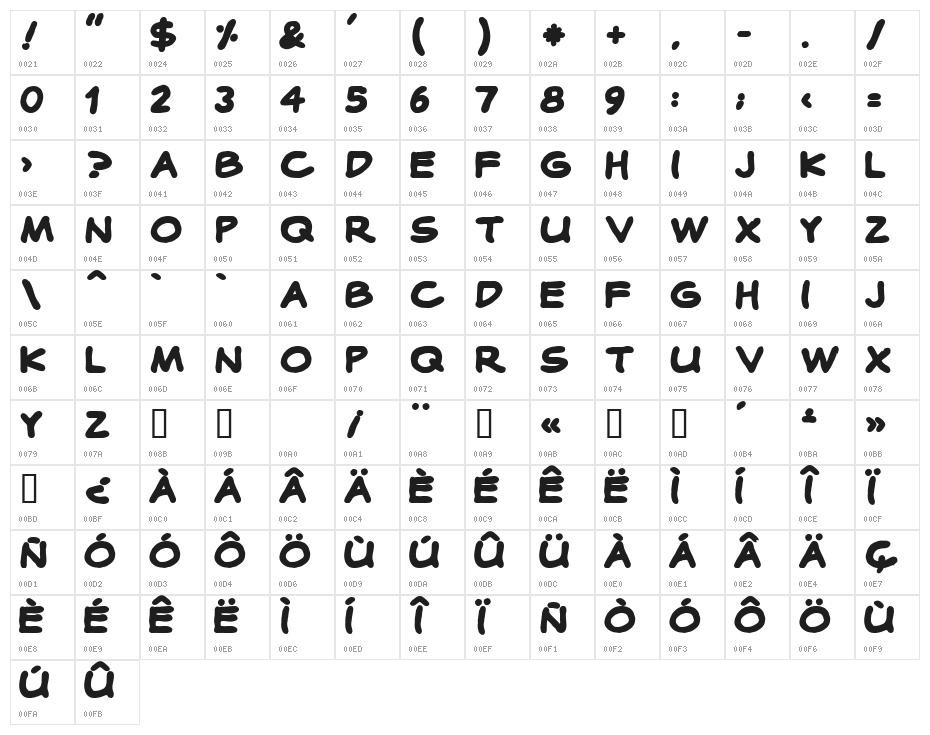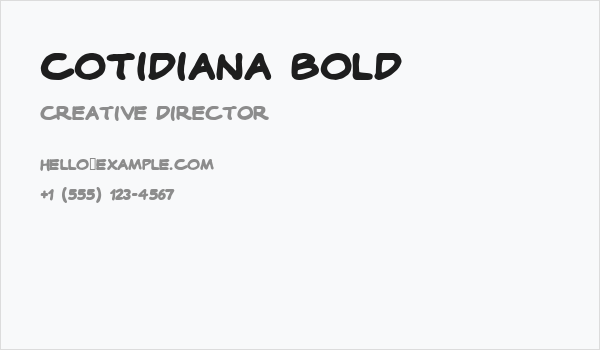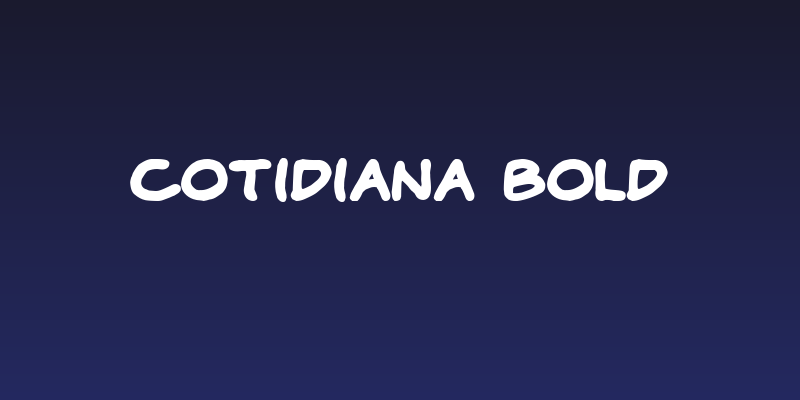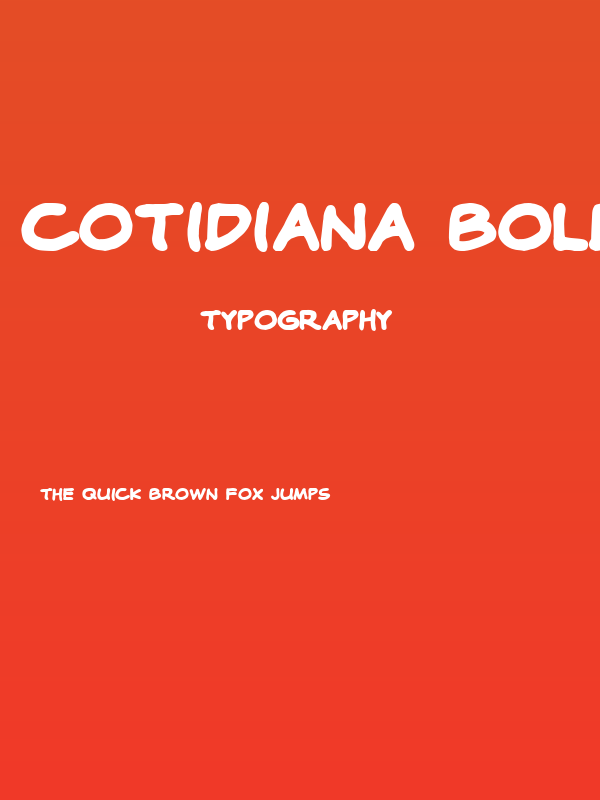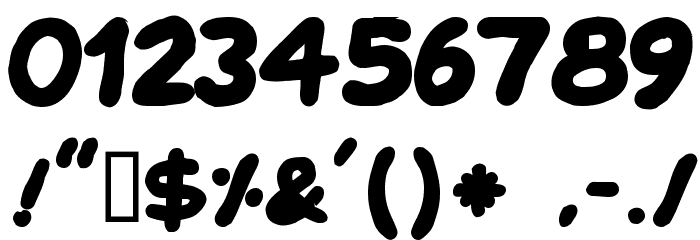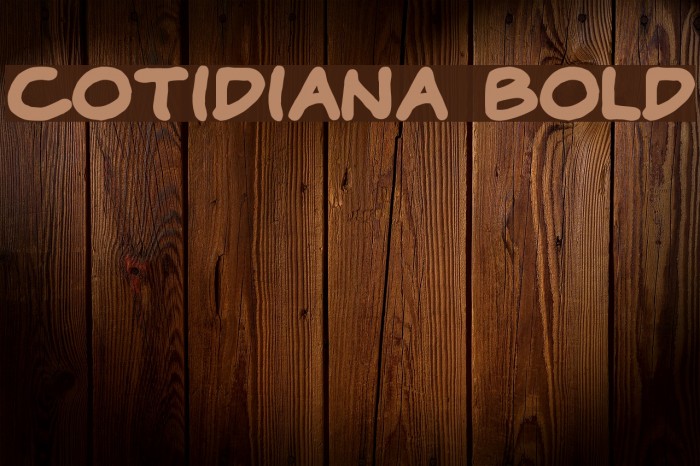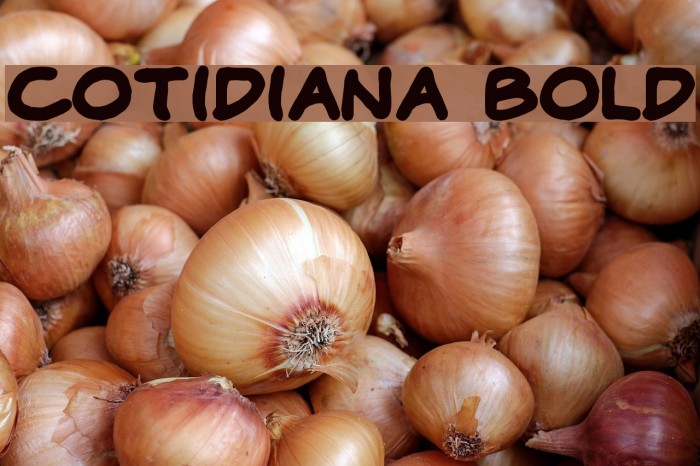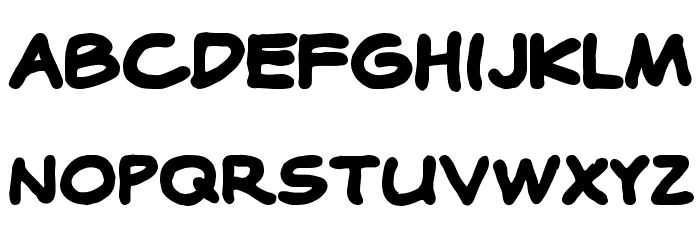
Cotidiana Bold Font
Cotidiana Bold Description
This font features a bold and playful style with rounded edges and a slightly irregular shape, giving it a hand-drawn appearance. The characters are thick and substantial, providing a strong visual impact. The uppercase and lowercase letters maintain a consistent weight, ensuring readability while adding a touch of whimsy. The numerals are equally bold, matching the overall style of the alphabet. Special characters are included, maintaining the same playful and robust design. This font is ideal for projects that require a friendly and approachable aesthetic.
| Overall Style | Playful, Hand-drawn |
| Proposed Projects | Ideal for children's books, playful branding, posters, and creative projects that require a friendly and approachable look. |